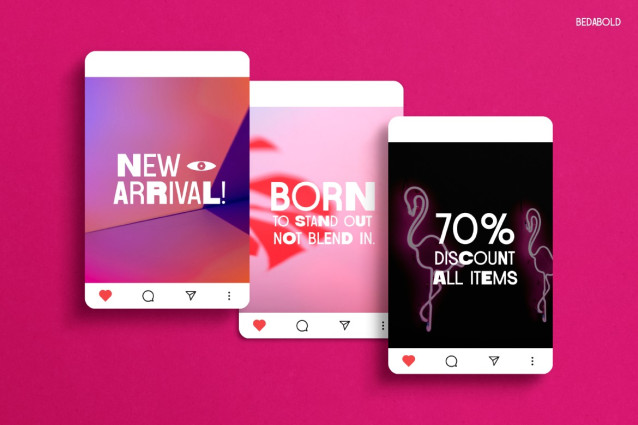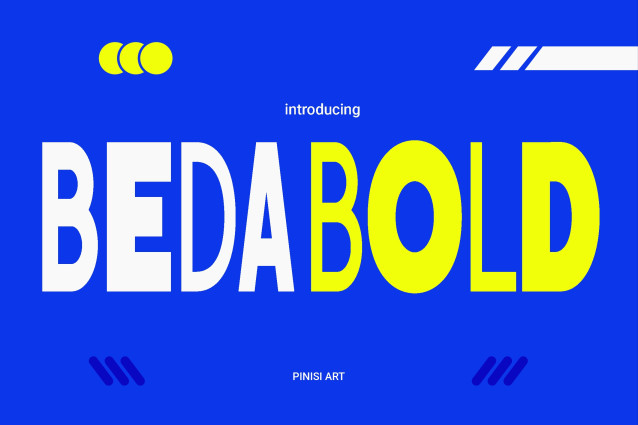
Bedabold Font
BEDABOLD FONT is a bold and stylish typeface designed to stand out. Its strong shapes give every word impact, while its clean modern style keeps the look sharp. What makes this font unique is its ability to balance playfulness and professionalism at once. Therefore, it works equally well for posters, social media graphics, branding, and beyond. Moreover, its geometric details and vibrant rhythm ensure your message always captures attention.
BEDABOLD is more than a typeface—it’s a creative tool. Its thick strokes and clear readability deliver instant presence, making your design unforgettable. In addition, the font adapts seamlessly to both digital and print projects, giving designers freedom to experiment. It shines in high-contrast layouts, campaign ads, and modern editorials. Consequently, typography with BEDABOLD is not just decoration—it becomes a vital part of the story.
Furthermore, its dynamic look encourages experimentation. You can pair it with bright colors, layered textures, or minimalist layouts without losing clarity. While uppercase letters create a commanding mood, lowercase brings balance and approachability. As a result, BEDABOLD easily fits into fashion promos, event posters, and Instagram feeds, adding both energy and charisma.